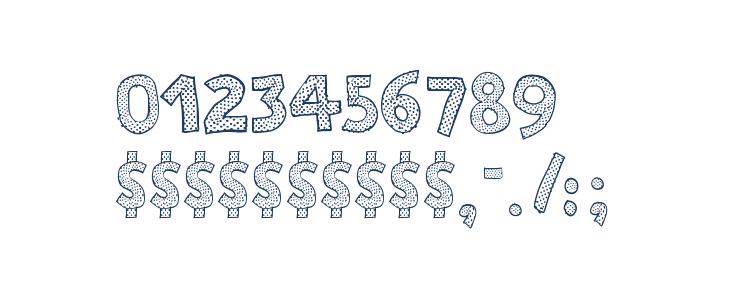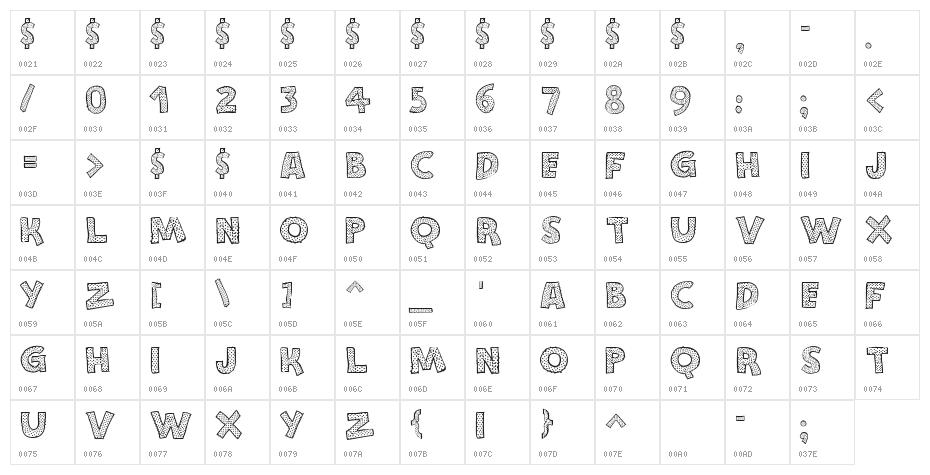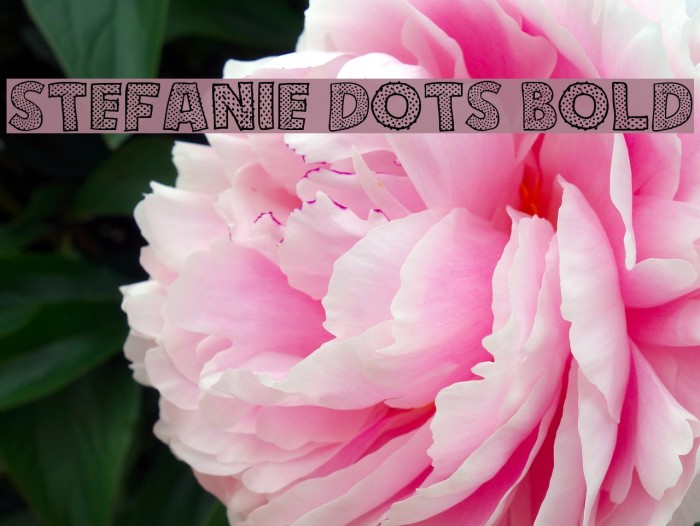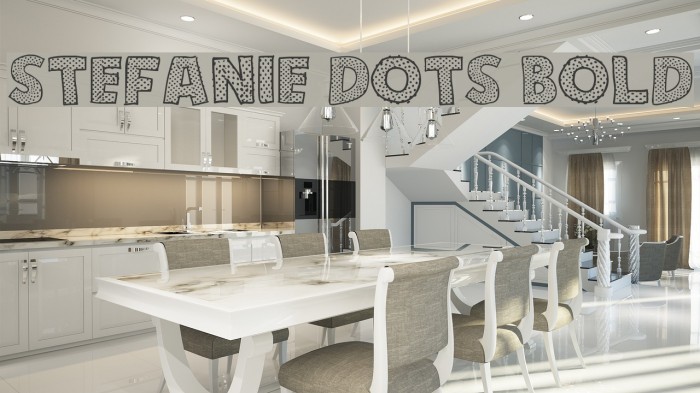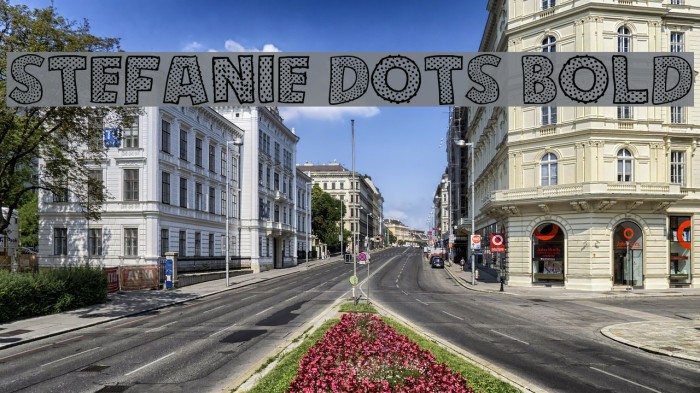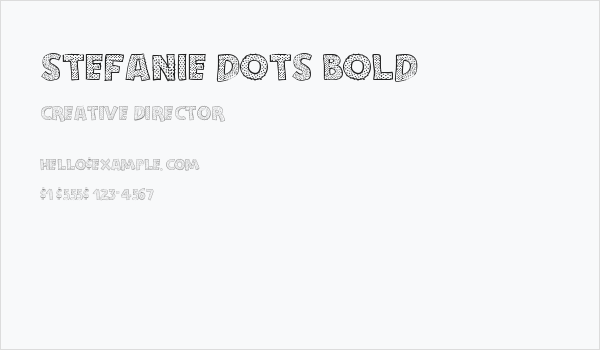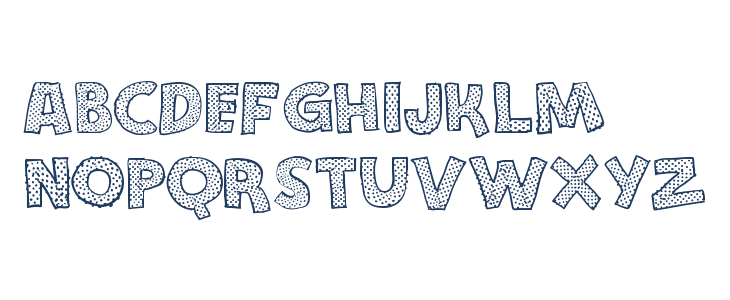
Stefanie Dots Bold Font
Stefanie Dots Bold Description
This playful and bold font features a dotted pattern within each character, giving it a lively and dynamic appearance. The letters are uppercase and have a slightly irregular, hand-drawn style that adds to their charm. The numbers and special characters follow the same design, ensuring consistency across all elements. The font's boldness and decorative nature make it stand out, making it ideal for projects that require a fun and eye-catching typeface.
| Overall Style | Playful, Decorative |
| Use Case | Headlines, Posters, Invitations |
| Proposed Projects | Ideal for children's books, playful posters, party invitations, and any design needing a fun and lively touch. |